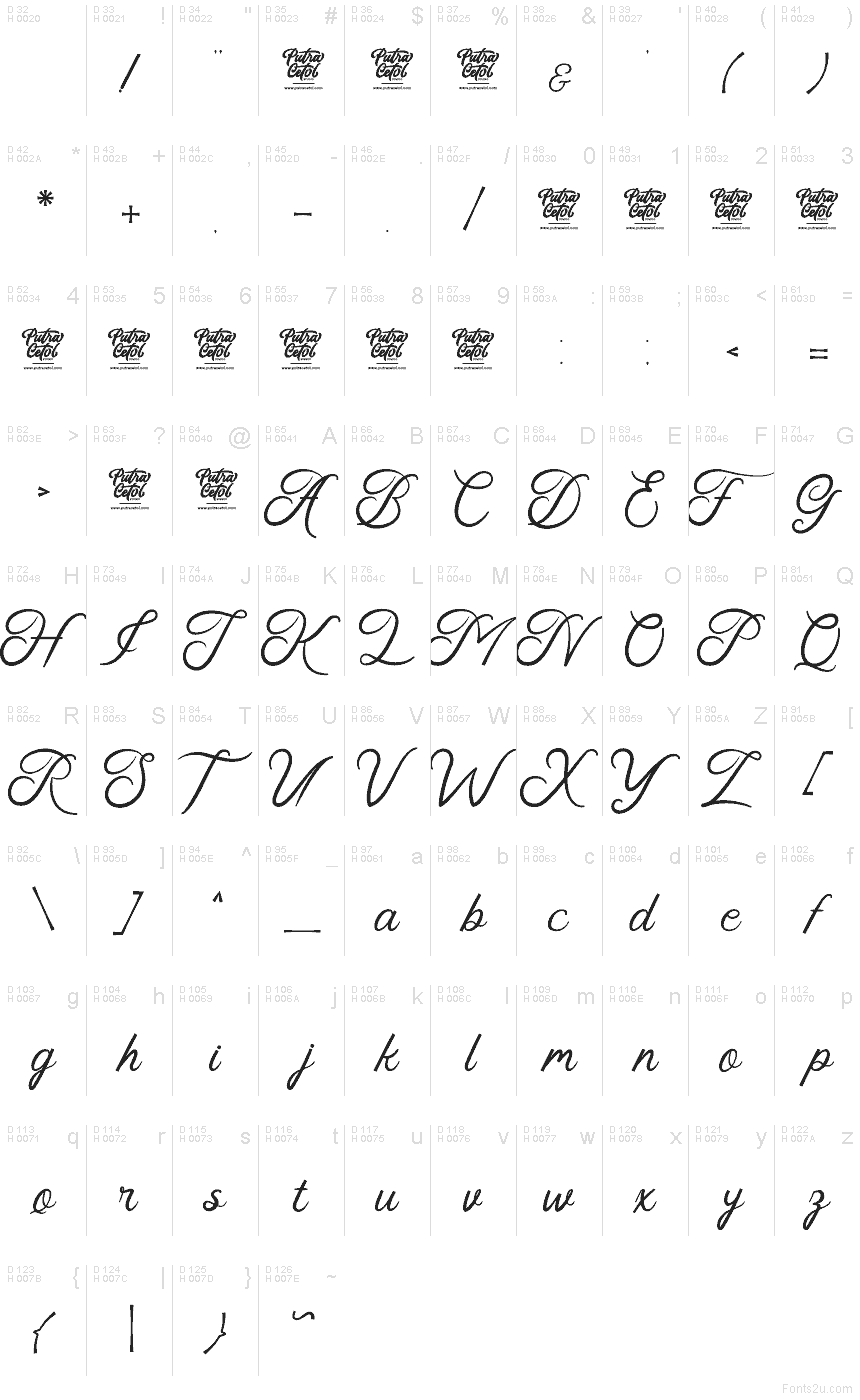
Faldith
Faldith font is a free calligraphy font by PutraCetol Studio with delicately curled edges and elegant style. The brushed typeface portraits three different tones in its compositions: a light airy one, another angelic, and an ominous look when used at a large size. Its soft lines are both seductive and serious.
Use it abundantly in branding design with logos, typography-driven apparel pieces; on packaging design projects for authenticity; or on websites as headers; on invitations like wedding cards; or on movie posters. Find more use cases in album covers, books/magazines titles, ads, or labels also.